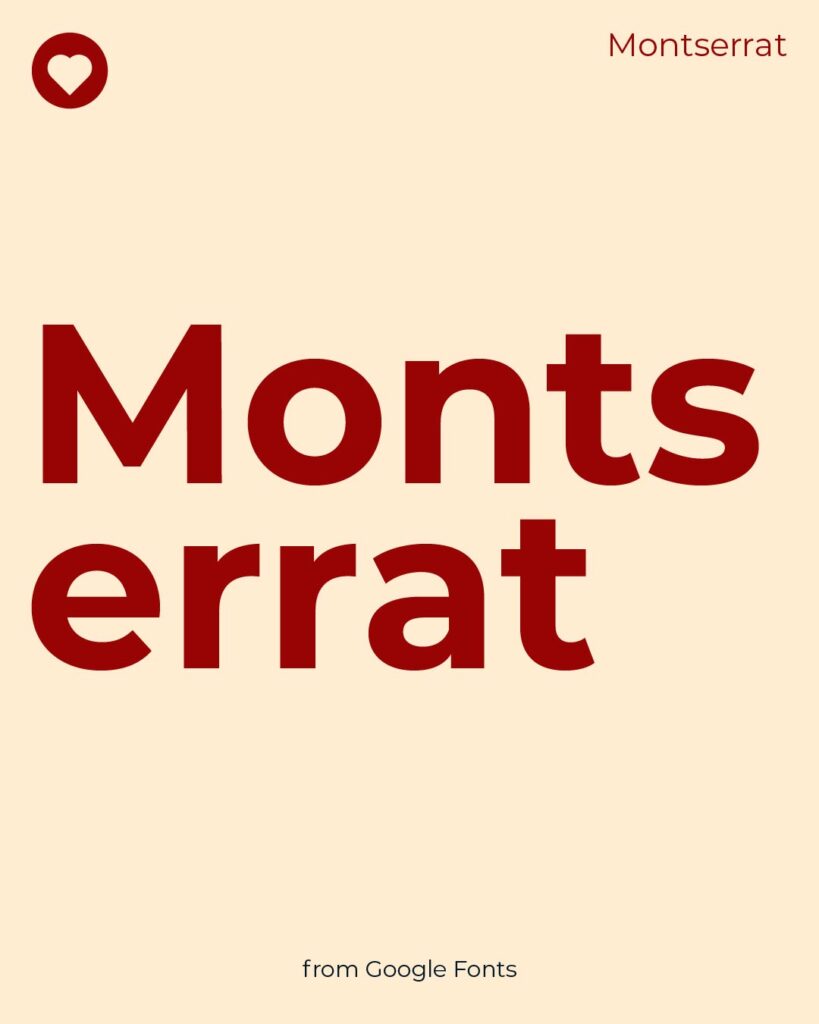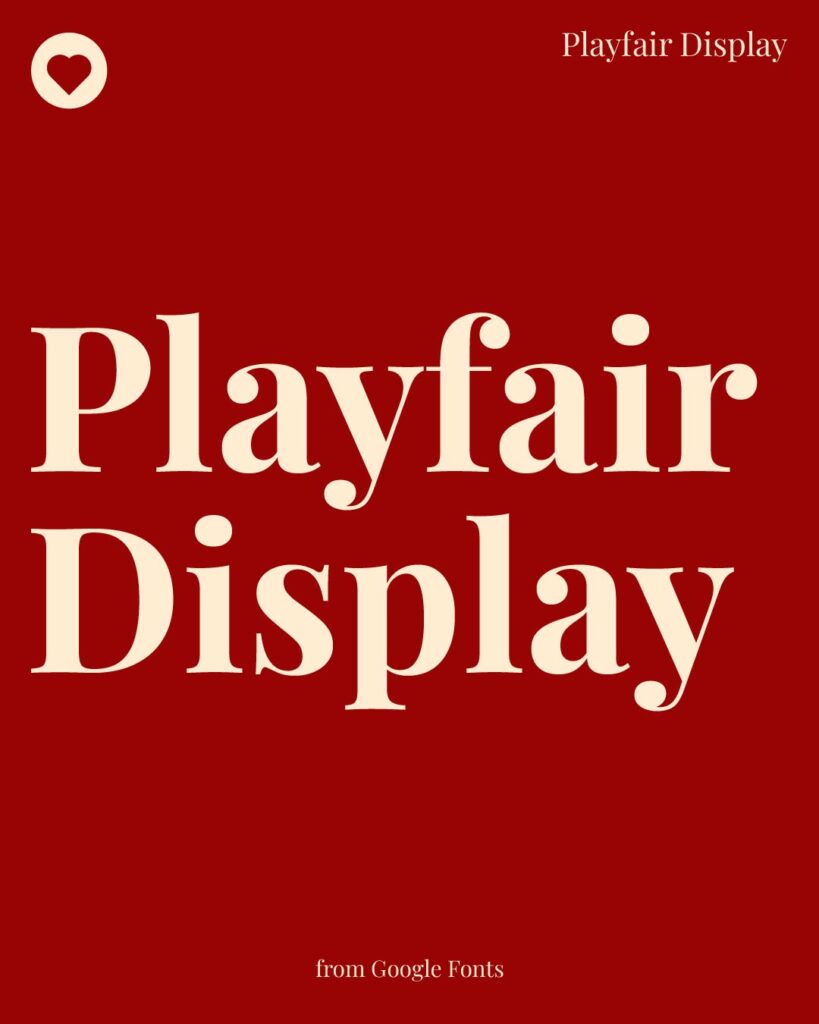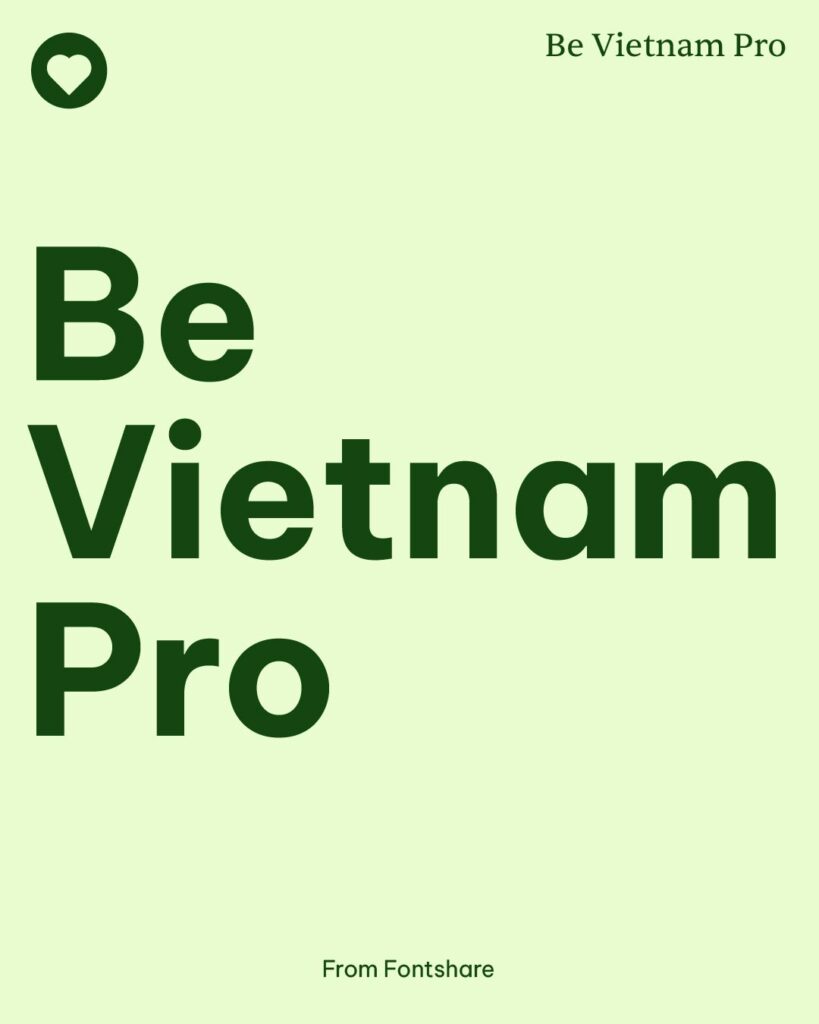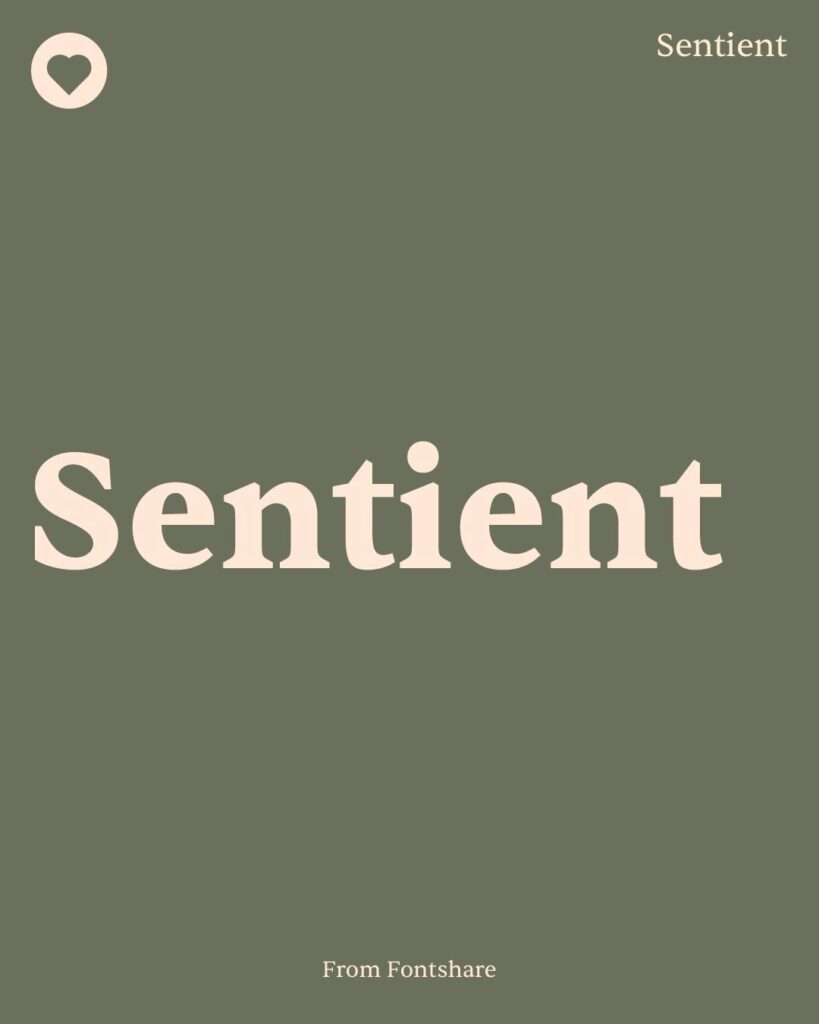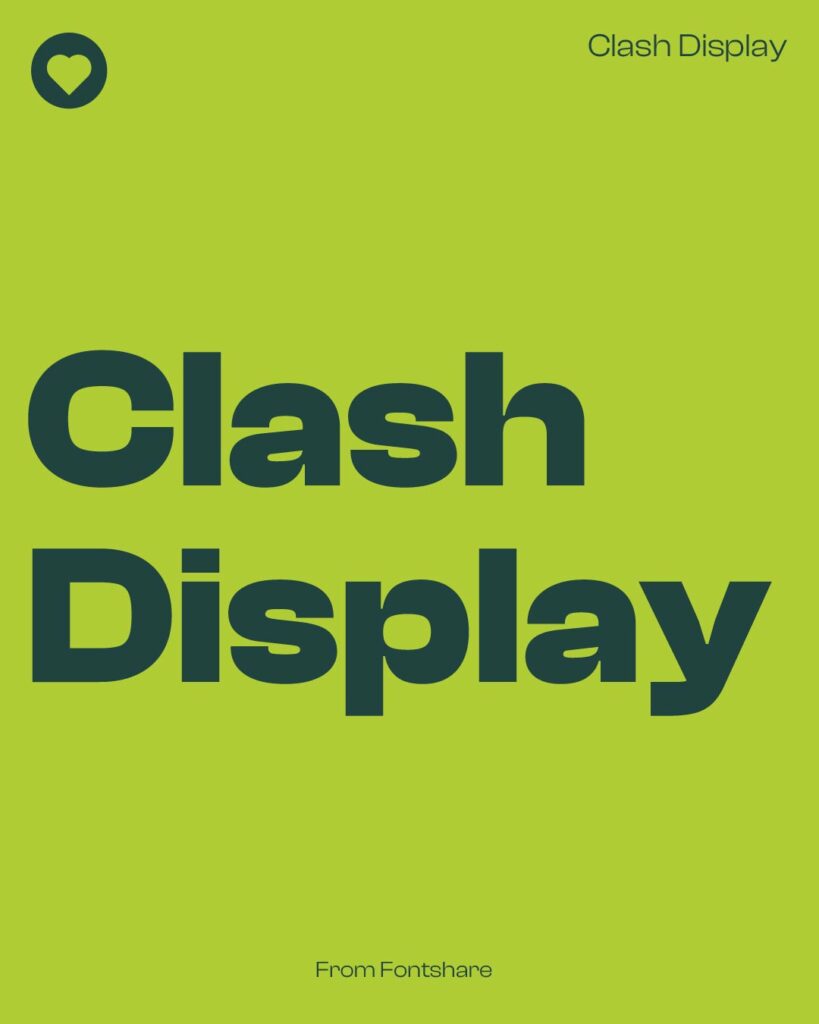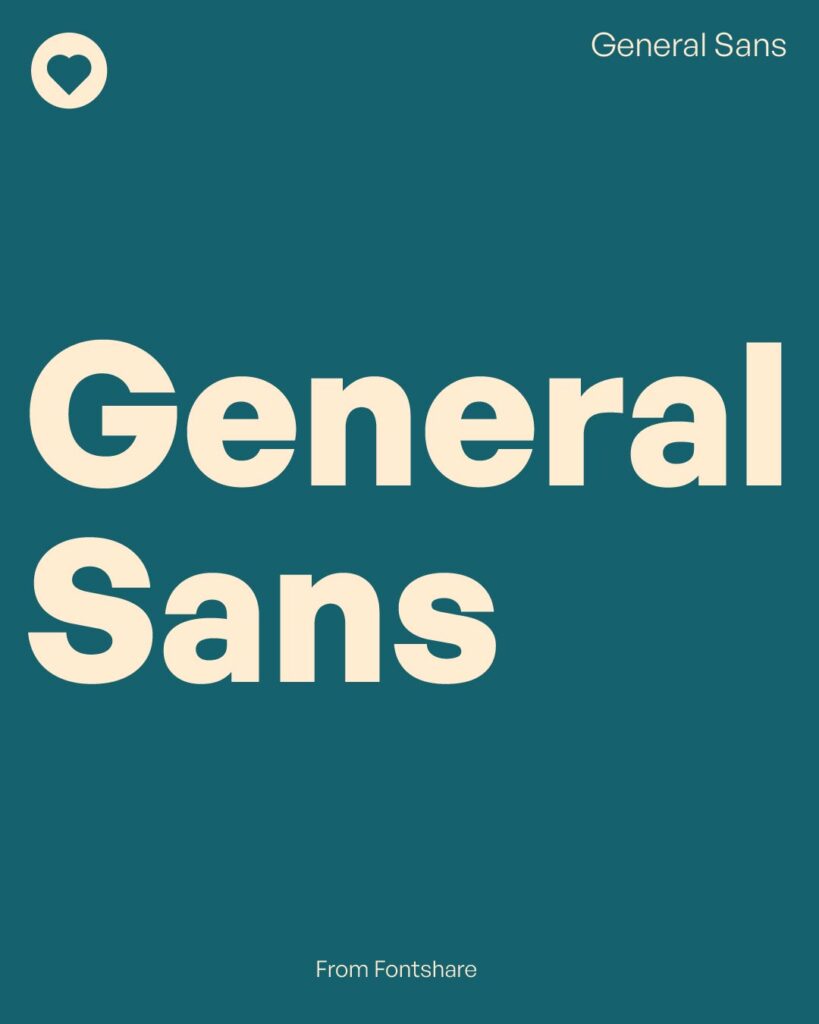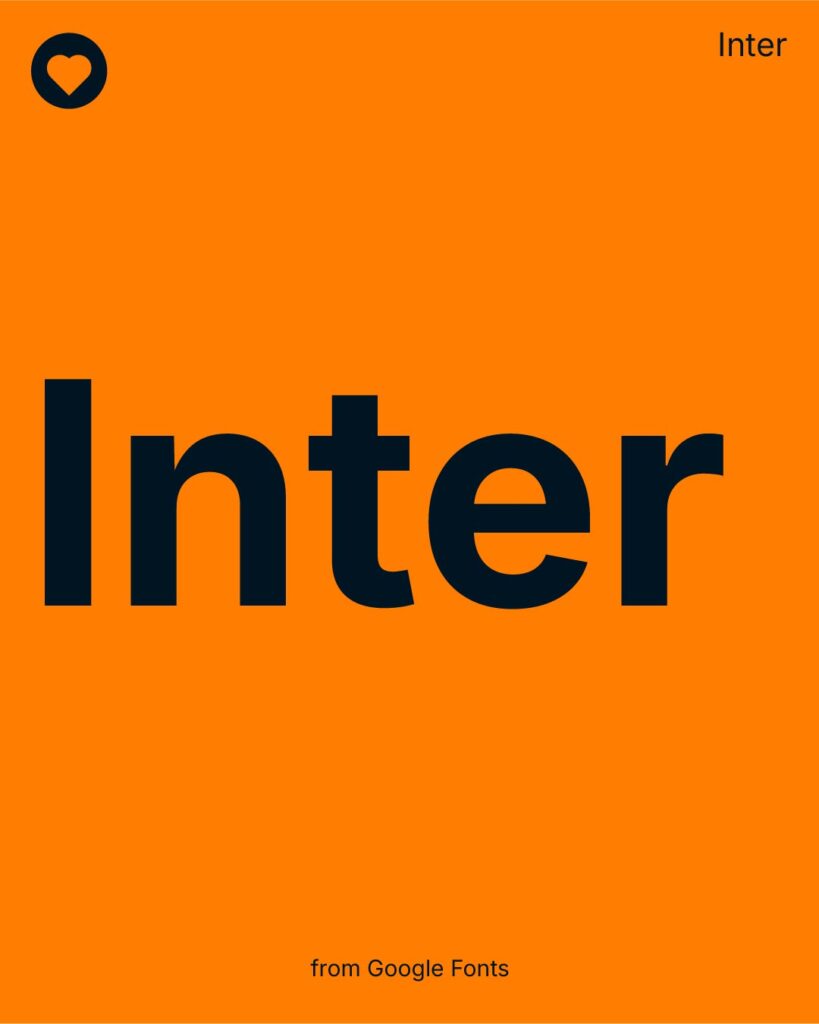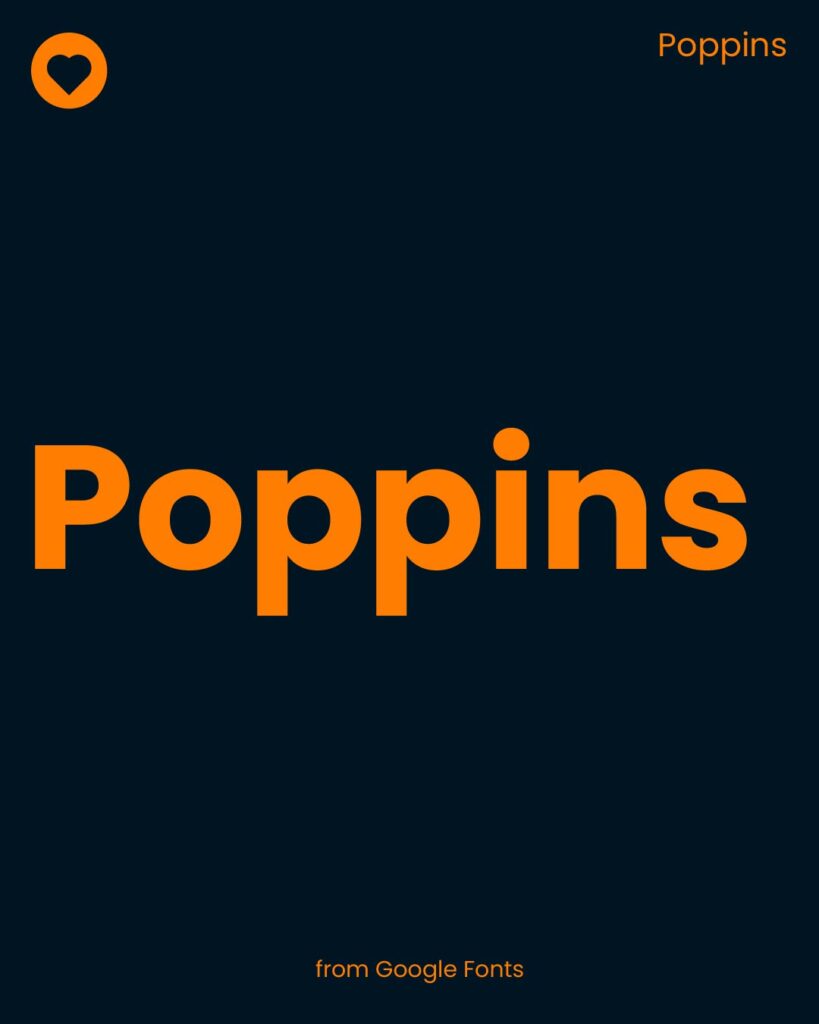
Top 40 Free Typography Fonts Every Designer Should Know
Typography is more than style—it’s how design speaks. Whether you’re building a brand, designing a website, or creating social media content, the right font sets the tone and makes your message more powerful. And the best part? You don’t need to spend a penny to use high-quality typefaces.
In this guide, we’re diving into 40 free typography fonts every designer should know—sourced from trusted platforms like Google Fonts, Fontshare, Adobe Fonts, and independent creators. This collection is your typography toolbox—ready to elevate your design projects without stretching your budget.
Why Typography Matters (and Why Font Choice Is Everything)
Typography isn’t just a design element—it’s a design decision. Fonts shape perception, drive emotion, and guide attention. A clean sans-serif signals modernity; a classic serif conveys trust; a handwritten script can feel warm and personal.
Poor font choices lead to cluttered communication. Great font choices create clarity, style, and confidence.
Now let’s explore the best free typography fonts available today.
Free Typography Fonts from Google Fonts
Inter – Clean, sharp, and ideal for digital design
Lora – Calligraphy-inspired serif, great for readability
Montserrat – Bold and geometric, perfect for branding
Roboto – Balanced and modern; widely used in apps and web
Playfair Display – Editorial style with a luxurious twist
Poppins – Rounded, friendly, and great for tech/startups
Merriweather – Designed for reading on screens
Raleway – Elegant sans-serif ideal for portfolios
Nunito – Approachable, easy-to-read font for education
Libre Baskerville – A web-optimized serif for long reads
Must-Know Fonts from Fontshare
General Sans – Neutral, minimalist, and interface-friendly
Switzer – Swiss-style structure for professional use
Clash Display – Bold personality for posters and headlines
Satoshi – Balanced and sleek for editorial or corporate
Zodiak – A high-contrast serif with magazine flair
Cabinet Grotesk – Retro-meets-modern for brand work
Boska – Sharp yet subtle for structured designs
Sentient – A warm serif great for lifestyle brands
Outfit – Flexible, scalable, and logo-ready
Be Vietnam Pro – Clean and compact for UI/UX
Top Picks from Adobe Fonts
Source Sans Pro – Highly legible, ideal for digital text
Acumin – Corporate elegance meets modern simplicity
Minion – Timeless serif for editorial and formal layouts
Myriad – Friendly sans-serif famously used by Apple
Raleway Dots – A playful take on the classic Raleway
Bungee – Bold and fun for attention-grabbing displays
Freight Sans – Sophisticated yet readable for magazines
Museo Slab – Strong, clean, and structured
Proxima Nova – A digital favorite among UI designers
Fira Sans – Optimized for screen clarity
Independent Free Fonts Designers Love
League Spartan – All-caps impact font for bold branding
Bebas Neue – A modern classic for titles and headers
Oswald – Narrow and powerful for responsive design
Abril Fatface – Elegant and expressive serif for fashion
Anton – Thick and assertive for eye-catching text
Pacifico – Handwritten charm for casual designs
Open Sans – Widely used, clean, and professional
PT Serif – A perfect blend of modern and traditional
Figtree – Balanced and geometric for UI work
Urbanist – Minimal and stylish with legibility in mind
How to Use Free Fonts Ethically
Always check licensing terms before using a font commercially. Google Fonts and Fontshare are safe and clear, while Adobe Fonts comes with Creative Cloud licenses.
Avoid downloading from unverified or pirated sources. Stick to official platforms for both quality and legal peace of mind. Keep track of font sources, especially for client work.
Pro Tips: Combining Fonts Like a Designer
• Pair serif + sans-serif for contrast (e.g. Playfair Display + Inter)
• Stick to 2 fonts per project
• Use contrast in size and weight, not style alone
• Avoid pairing fonts that are too similar—they’ll clash subtly
Final Thoughts
Typography isn’t just about letters—it’s about voice, energy, and experience. With the right font, your design becomes more than visual—it becomes unforgettable.
Q4: What’s the difference between serif and sans-serif fonts?
A: Serif fonts have small decorative strokes at the ends of letters (e.g., Times New Roman), while sans-serif fonts are clean and modern without those strokes (e.g., Roboto, Inter). Serif fonts are often used in print, while sans-serif fonts dominate digital design.